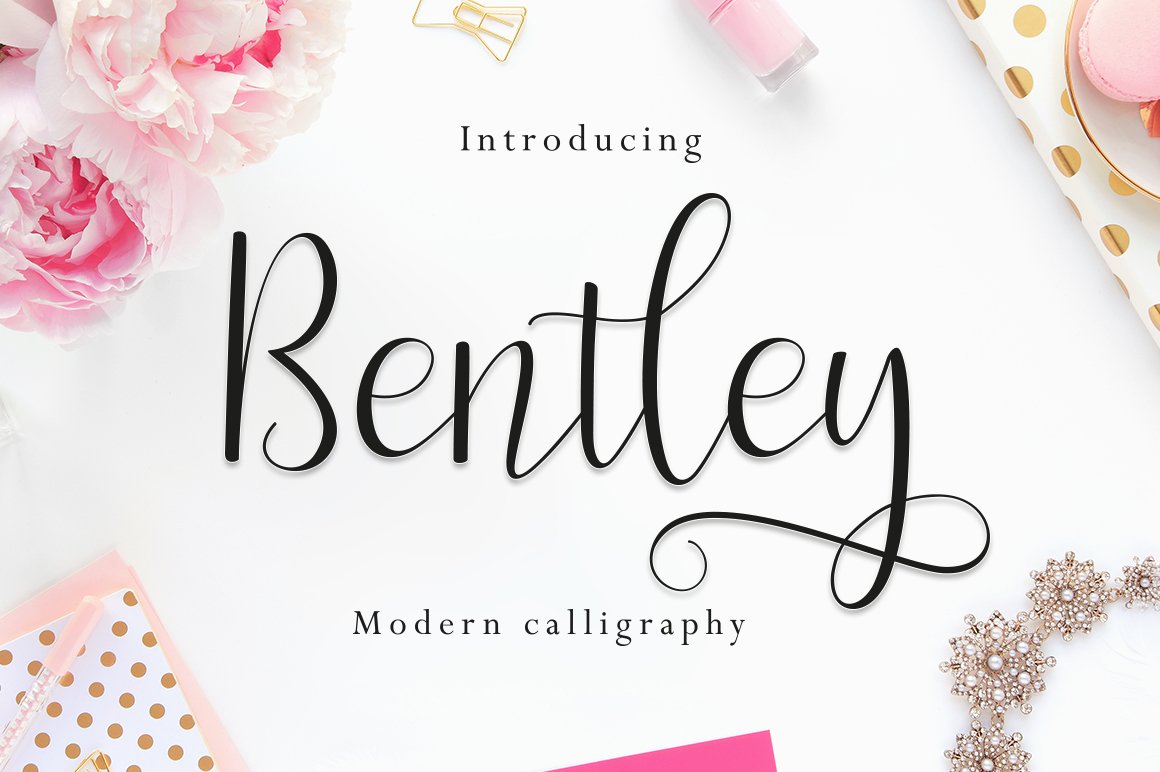
The Art of Whimsy: Discovering the Charm of Bentley Script Font
Have you ever been working on a design project, pouring your heart and soul into every detail, only to feel like something’s missing? You know, that spark that takes your creation from good to great? For me, that spark often comes in the form of a beautiful, elegant font. And that’s exactly what the Bentley Script Font brings to the table.
This modern calligraphy style font is a masterclass in charm and romance, perfect for adding a touch of whimsy to your headlines and designs. With its extensive library of alternates, you’ll have a world of options at your fingertips, allowing you to create truly unique and captivating visual stories.
As a designer, you know that the right font can make all the difference in elevating your work from bland to grand. The Bentley Script Font is an invaluable tool in your arsenal, offering a level of sophistication and elegance that’s hard to find in other fonts.
Bentley Script Font Key Features
- Font Type: Script Font, suitable for formal and informal use, including invitations, certificates, and signage.
- Unique Characteristics: Distinctive, flowing script style with elegant connections between letters, creating a sense of sophistication and refinement.
Bentley Script Font Review
As a designer, I’ve had the chance to work with various fonts, and my experience with Bentley Script Font has been quite interesting.
- Beautiful Handwritten Look: The Bentley Script Font has a lovely, handwritten feel to it, which makes it perfect for creating a personal touch in designs.
- Wide Range of Languages: This font supports a wide range of languages, making it a great choice for multilingual projects.
- High-Quality Typography: The font’s high-quality typography ensures that it looks great at various font sizes and resolutions.
- Limited Expressiveness: While the font’s handwriting feel is lovely, it may not be the best choice for projects that require a lot of expressiveness or dramatic flair.
- Not Ideal for Body Text: Due to its elegant and decorative nature, Bentley Script Font may not be the best choice for body text or long paragraphs.
Overall, I think the Bentley Script Font is a great choice for designers looking to add a touch of elegance and sophistication to their designs. While it may have some limitations, its unique look and feel make it a valuable addition to any font collection.
The Bentley Script Font is ideal for:
- Formal event invitations and announcements.
- Luxury branding and marketing materials.
For optimal results, use the Bentley Script Font in conjunction with a bold or italic font to create a striking contrast.